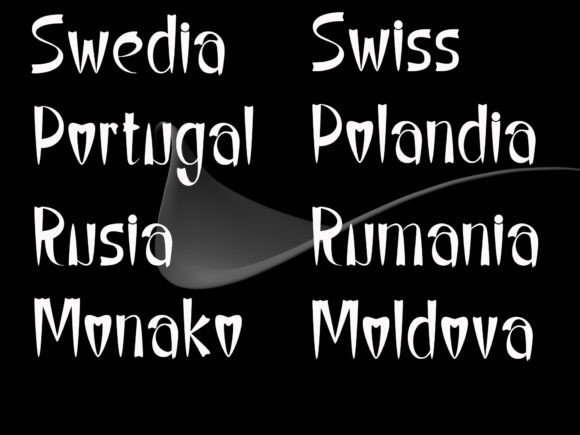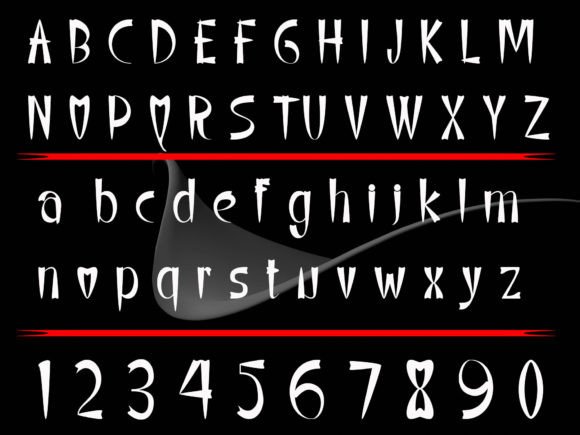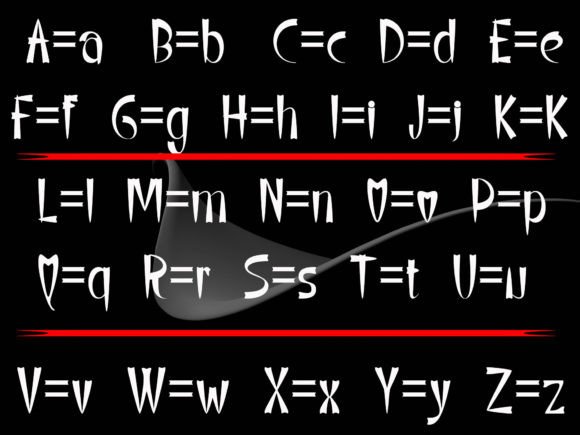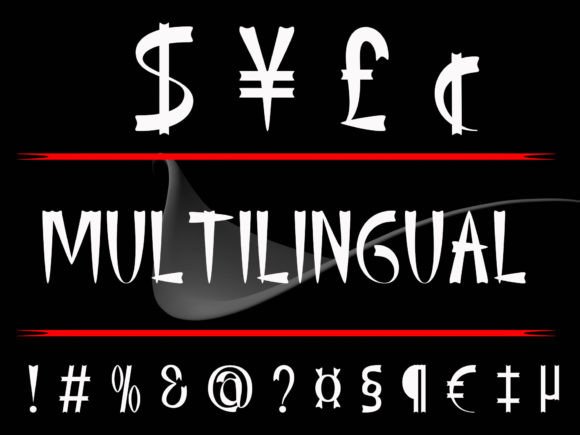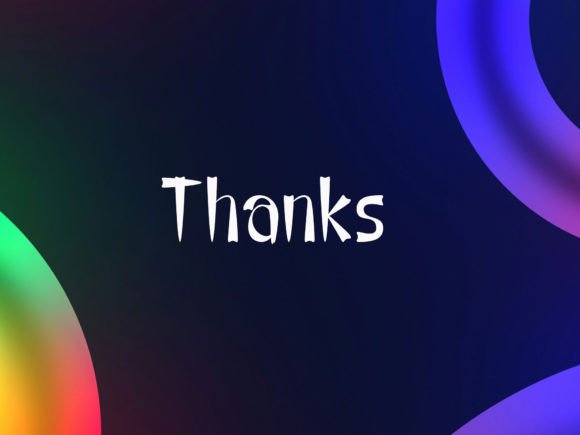
Introducing Ardalion Font: Elevate Your Designs with Style and Sophistication
In the world of design, typography plays a crucial role in conveying messages, expressing creativity, and capturing the audience’s attention. For designers and crafters seeking a font that embodies style, boldness, and beauty, Ardalion Font is an exceptional choice. This modern font is meticulously crafted to offer stunning typographic harmony, making it perfect for a wide range of design projects.
What Makes Ardalion Font Stand Out?
Ardalion Font is a stylish, bold, and beautiful modern font designed to elevate your designs to new heights. Its unique characteristics make it an ideal choice for various applications, including:
- Logos and Branding: Create a lasting impression with Ardalion Font’s distinctive and memorable style.
- Social Media Posts: Stand out in crowded feeds with eye-catching typography that demands attention.
- Advertisements: Grab the audience’s attention and convey your message with confidence.
- Greeting Cards: Add a touch of elegance and sophistication to your cards.
- Stationery Designs: Elevate your stationery with a font that exudes professionalism and style.
- Invitations: Make your invitations unforgettable with Ardalion Font’s luxurious feel.
- T-Shirts and Clothing: Create stunning apparel designs that turn heads.
- Packaging: Make your products stand out on store shelves with captivating typography.
- Posters: Create visually striking posters that communicate your message effectively.
- Product Designs: Add a touch of sophistication to your product designs and take them to the next level.
Key Features of Ardalion Font
Ardalion Font boasts several key features that make it a versatile and desirable choice for designers:
- Modern and Bold: Ardalion Font’s contemporary design and bold style ensure it makes a statement in any design.
- Beautiful Typographic Harmony: The font’s carefully crafted letterforms create a stunning visual harmony that enhances any design.
- Highly Versatile: Ardalion Font can be used for a wide range of applications, from digital designs to print materials.
- Easily Readable: Despite its bold style, Ardalion Font remains highly readable, even at smaller sizes.
Why Choose Ardalion Font?
With so many fonts available, why choose Ardalion Font? Here are just a few reasons:
- Unique Style: Ardalion Font’s distinctive style sets it apart from other fonts, ensuring your designs stand out.
- Time-Saving: With Ardalion Font, you can create stunning designs quickly and efficiently, saving you time and effort.
- Professional Results: Achieve professional-looking results with Ardalion Font’s high-quality design and typography.
Ardalion Font is an exceptional choice for designers and crafters seeking a stylish, bold, and beautiful modern font. Its versatility, readability, and stunning typographic harmony make it perfect for a wide range of design projects. Whether you’re creating logos, social media posts, advertisements, or product designs, Ardalion Font is sure to elevate your designs to new heights. So why wait? Discover the power of Ardalion Font and take your designs to the next level.